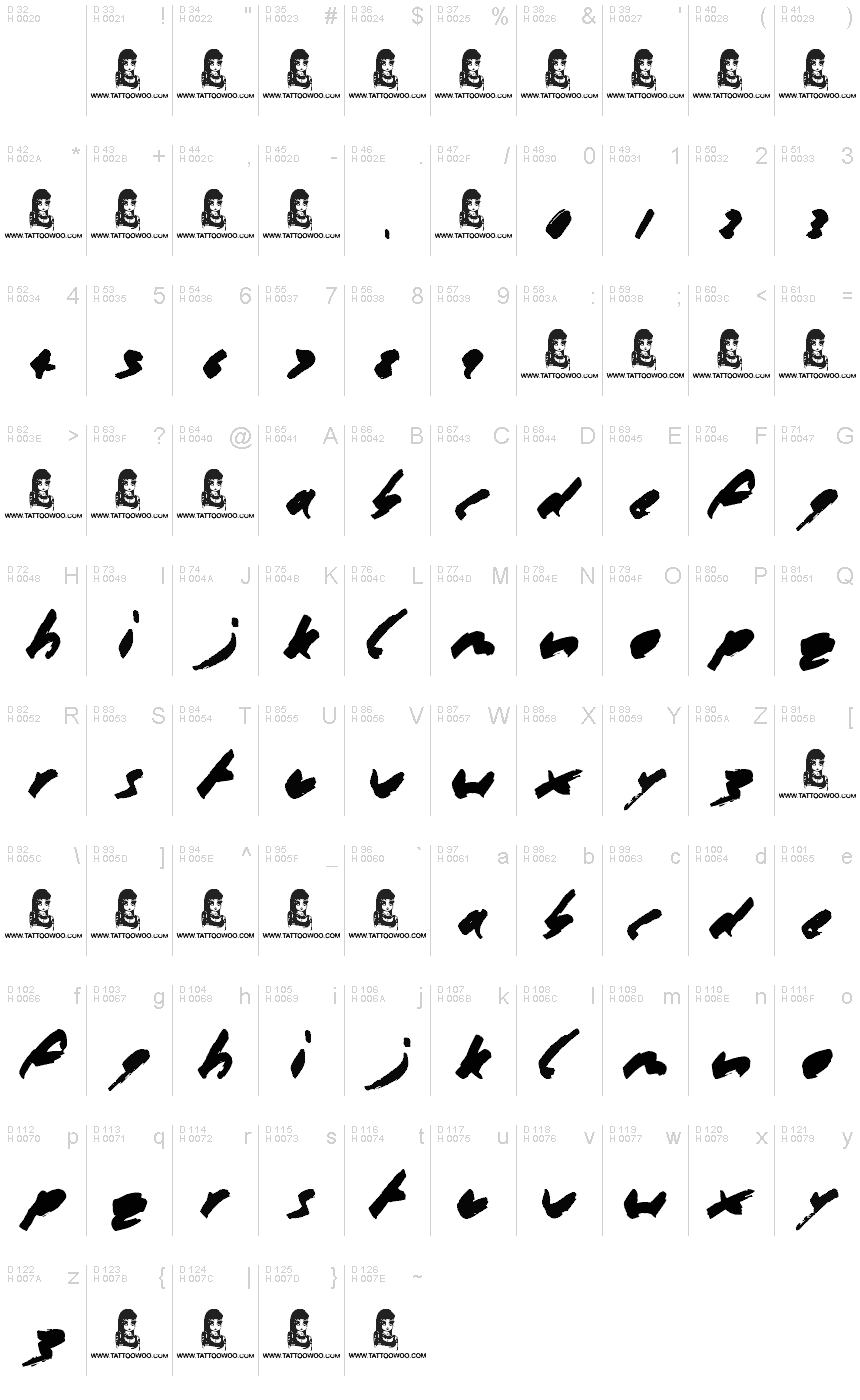
Marker Pen
Marker Pen is a bold, brush-style font that exudes a sense of raw energy and spontaneity. Its dynamic strokes and uneven lines convey a striking, handwritten aesthetic, lending an organic and artisanal quality to any design.
This font's versatility makes it an excellent choice for a variety of applications, from eye-catching headlines and impactful logos to expressive typography in editorial layouts and packaging designs. Its bold presence and expressive flair can add a touch of unique character and personality to projects across diverse creative disciplines.